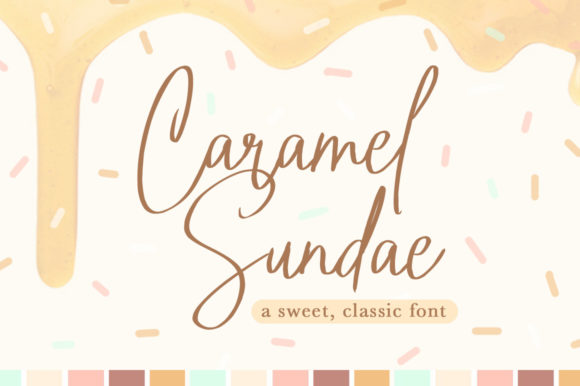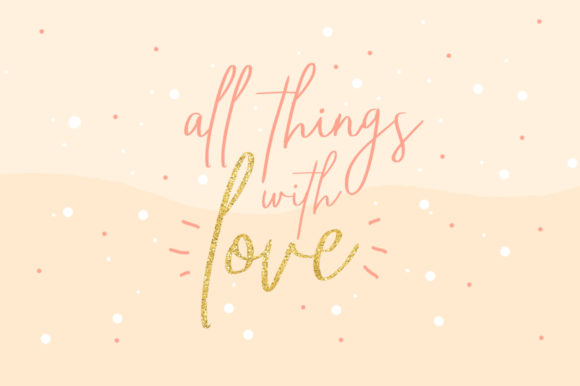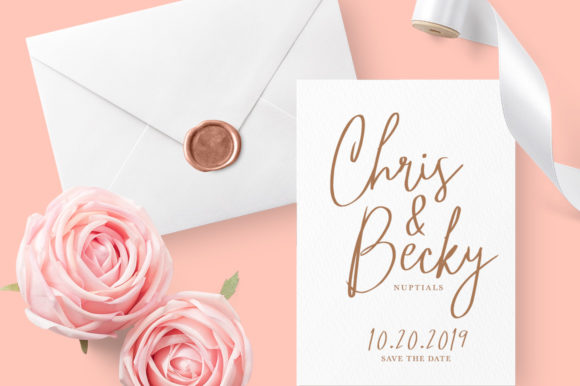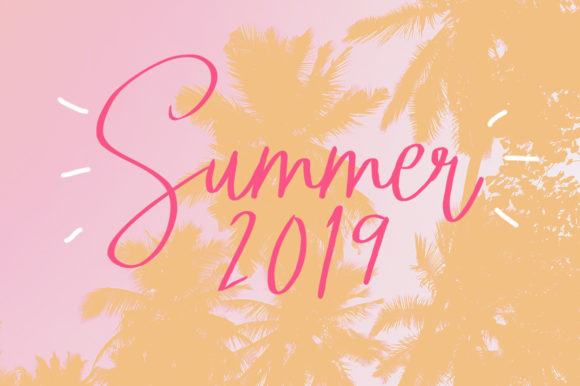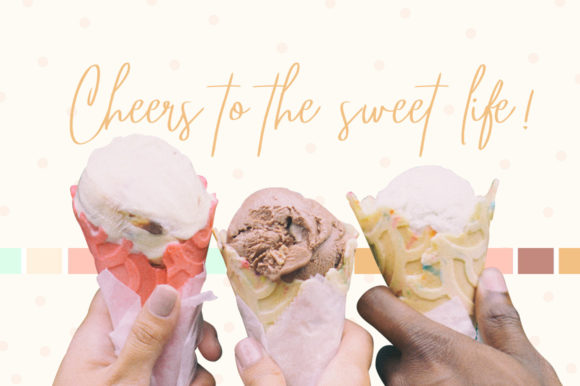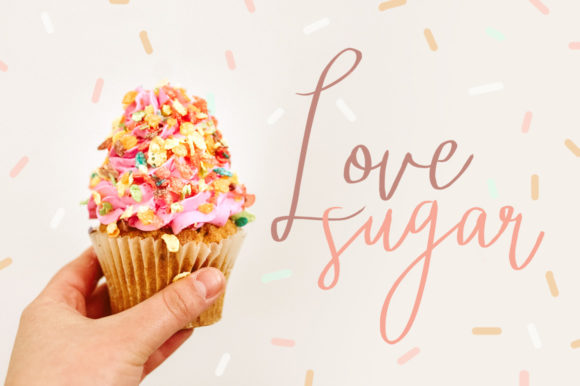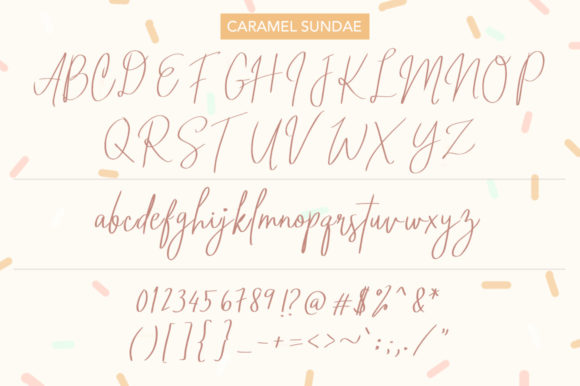
Caramel Sundae Font
About Caramel Sundae Font
Sweet and delicious like the drink it is inspired from, this lovely and light handwritten font will turn any design idea into a true stand out.